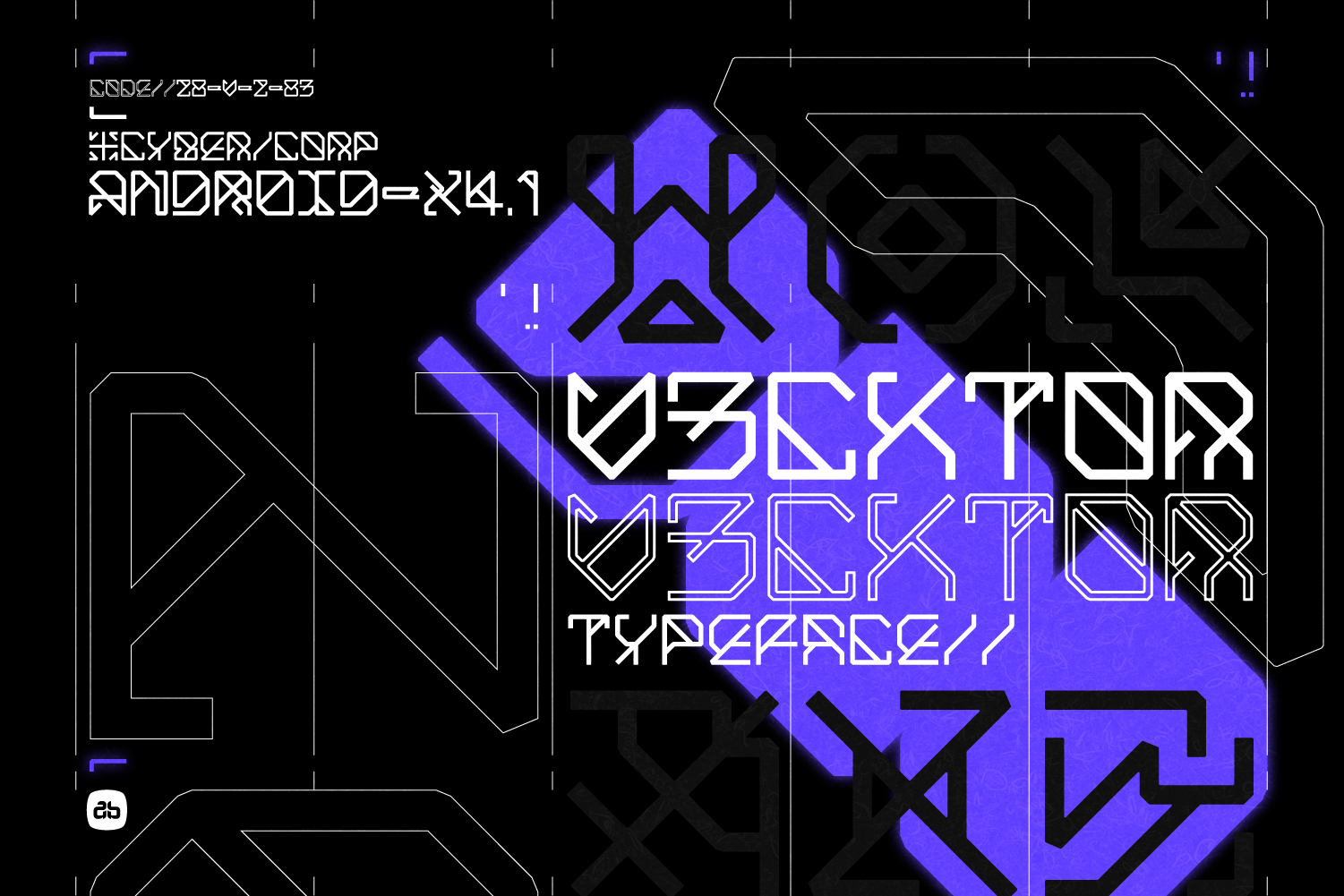
V3CKT0R Futuristic Typeface
V3CKT0R - Futuristic Typeface - Released Feb 2021
Experimental type design with a focus on 45 degree designed on a grid to be legible but super futuristic. Primarily setup as an uppercase typeface but with a different upper and lowercase configuration. Font also goes beyond the usual where its exploring shapes, other glyphs and arrows to complete integration into your futuristic sci-fi cyberpunk designs.